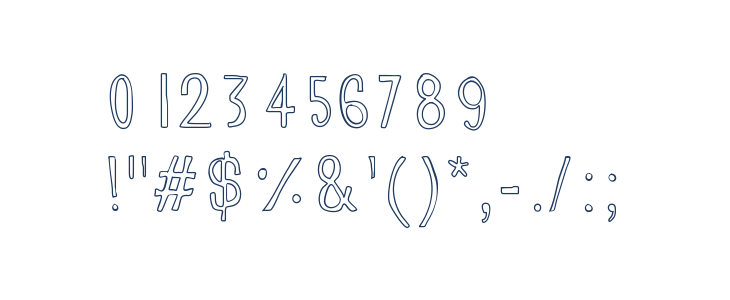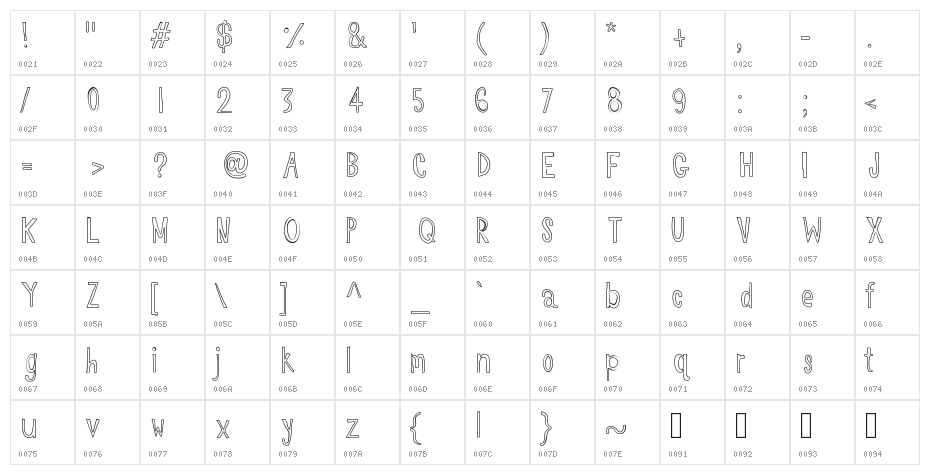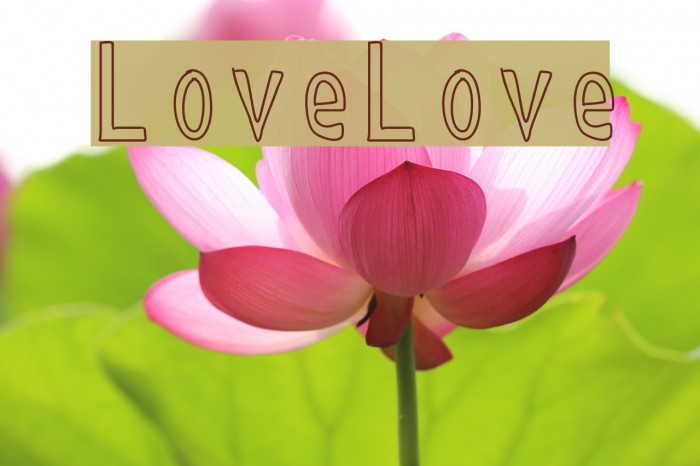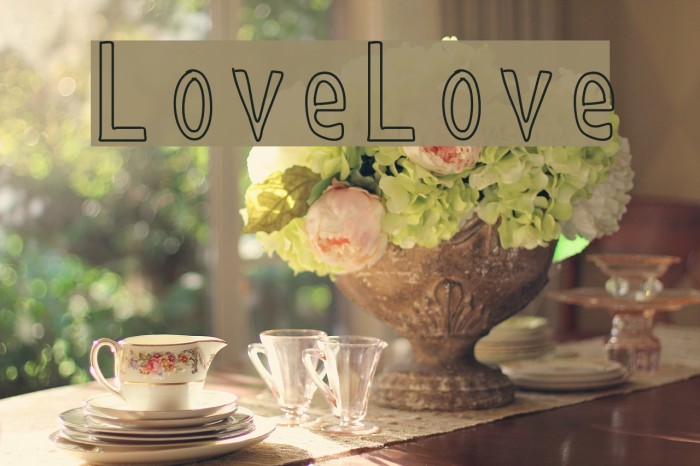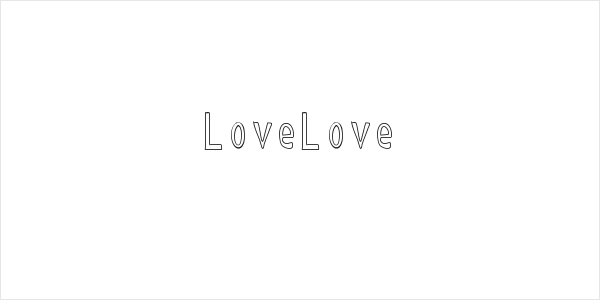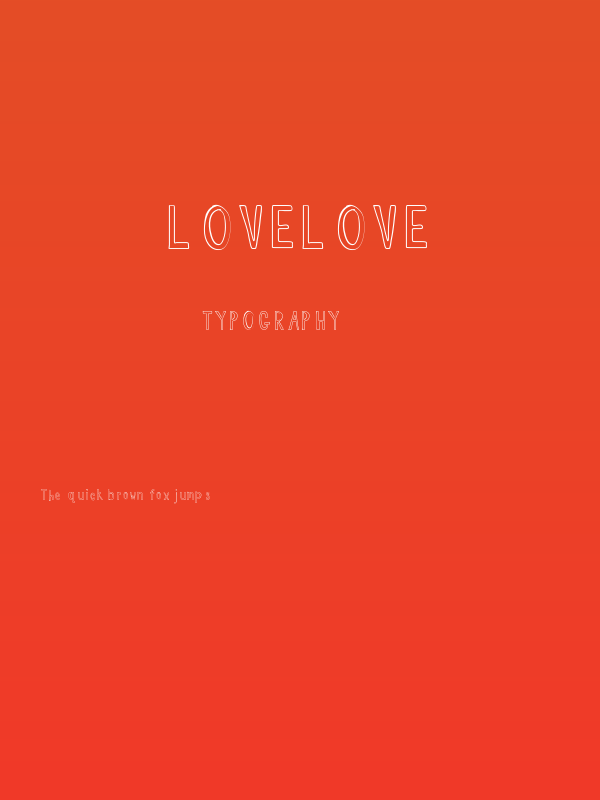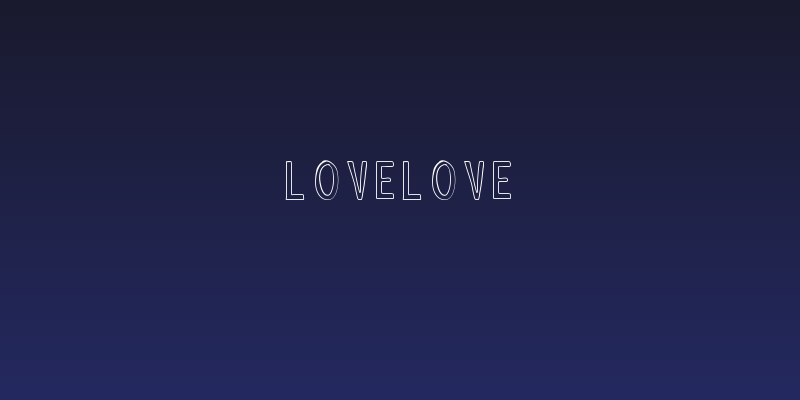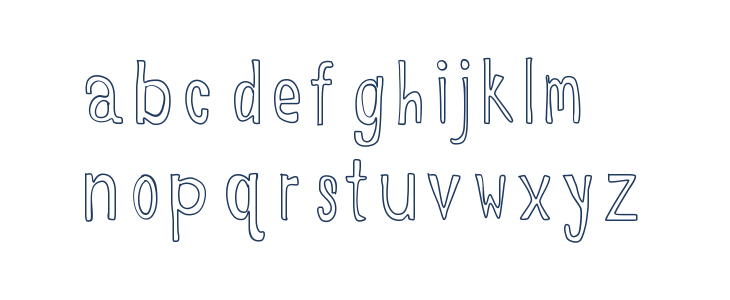
LoveLove Font
LoveLove Description
This playful and whimsical font features a hand-drawn aesthetic with a charming, irregular outline. Each character is uniquely crafted, giving it a casual and friendly appearance. The uppercase and lowercase letters maintain a consistent style, with rounded edges and a slightly uneven baseline, adding to its informal charm. The numerals and special characters follow the same design principles, ensuring a cohesive look across all glyphs. This font is perfect for projects that require a touch of personality and creativity.
Proposed ProjectsIdeal for children's books, greeting cards, playful branding, and creative posters.